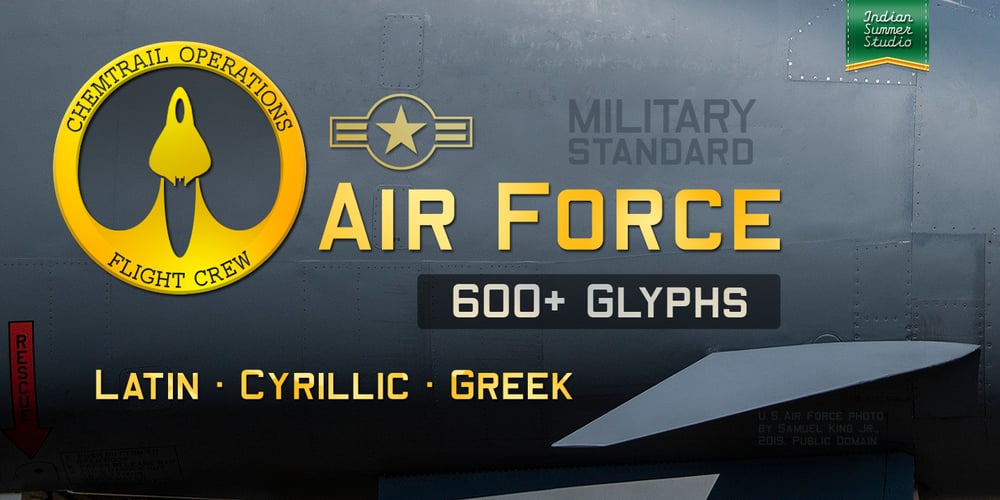
Air Force Font Family was designed by Alexander Bobrov and published by Indian Summer Studio. Air Force contains 4 styles and family package options. The family for the official US military fonts/lettering used in U.S. Air Force, U.S. Army, U.S. Navy, U.S. Marine Corps. Made after the existing Military Standards and Technical Manuals.